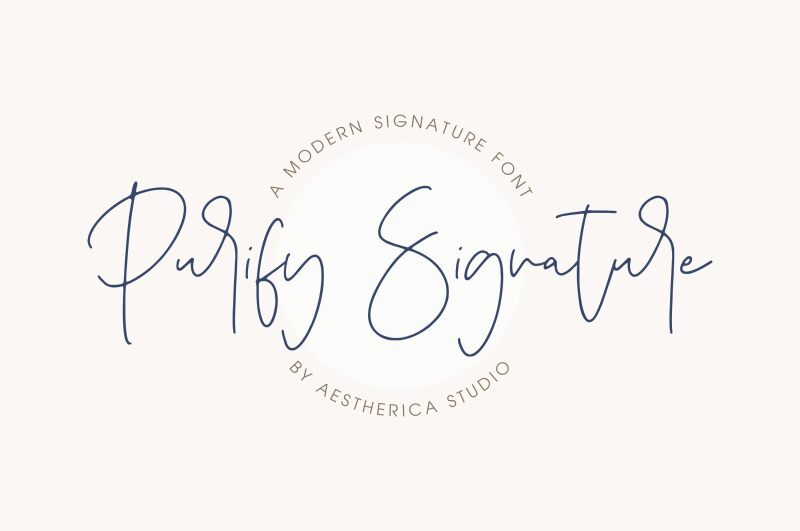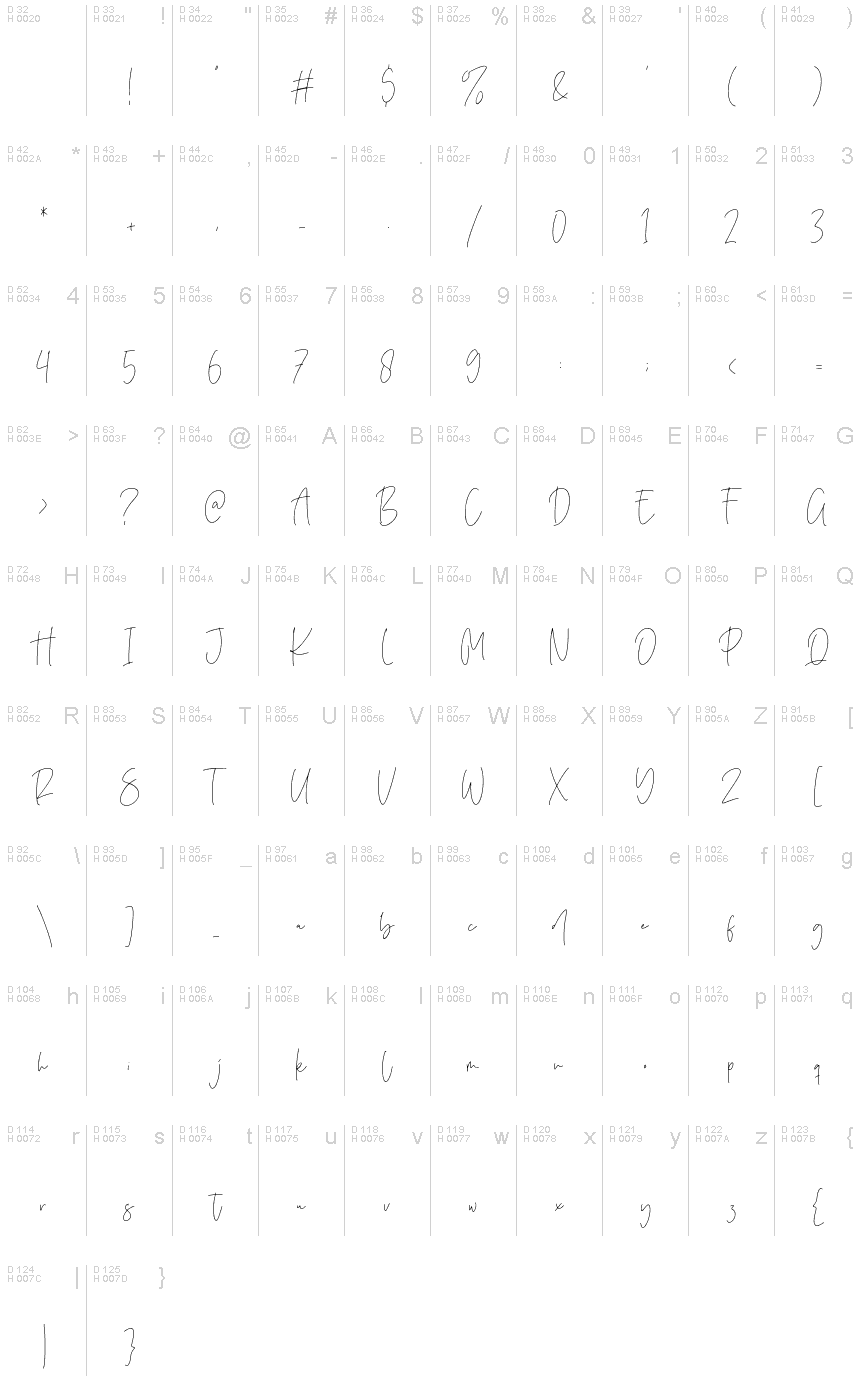
Purify Signature
Purify Signature, designed by Aestherica Studio, is an exquisite extra-light font with a beautifully handwritten signature style.
Its delicate strokes and flowing curves make it perfect for elegant wedding invitations, sophisticated branding materials, and high-end fashion magazines. This font effortlessly adds a touch of refinement to luxury product packaging, exclusive event posters, and professional photography portfolios. With its graceful appearance and timeless appeal, Purify Signature is the ideal choice for creating a sense of prestige and indulgence in any design project.